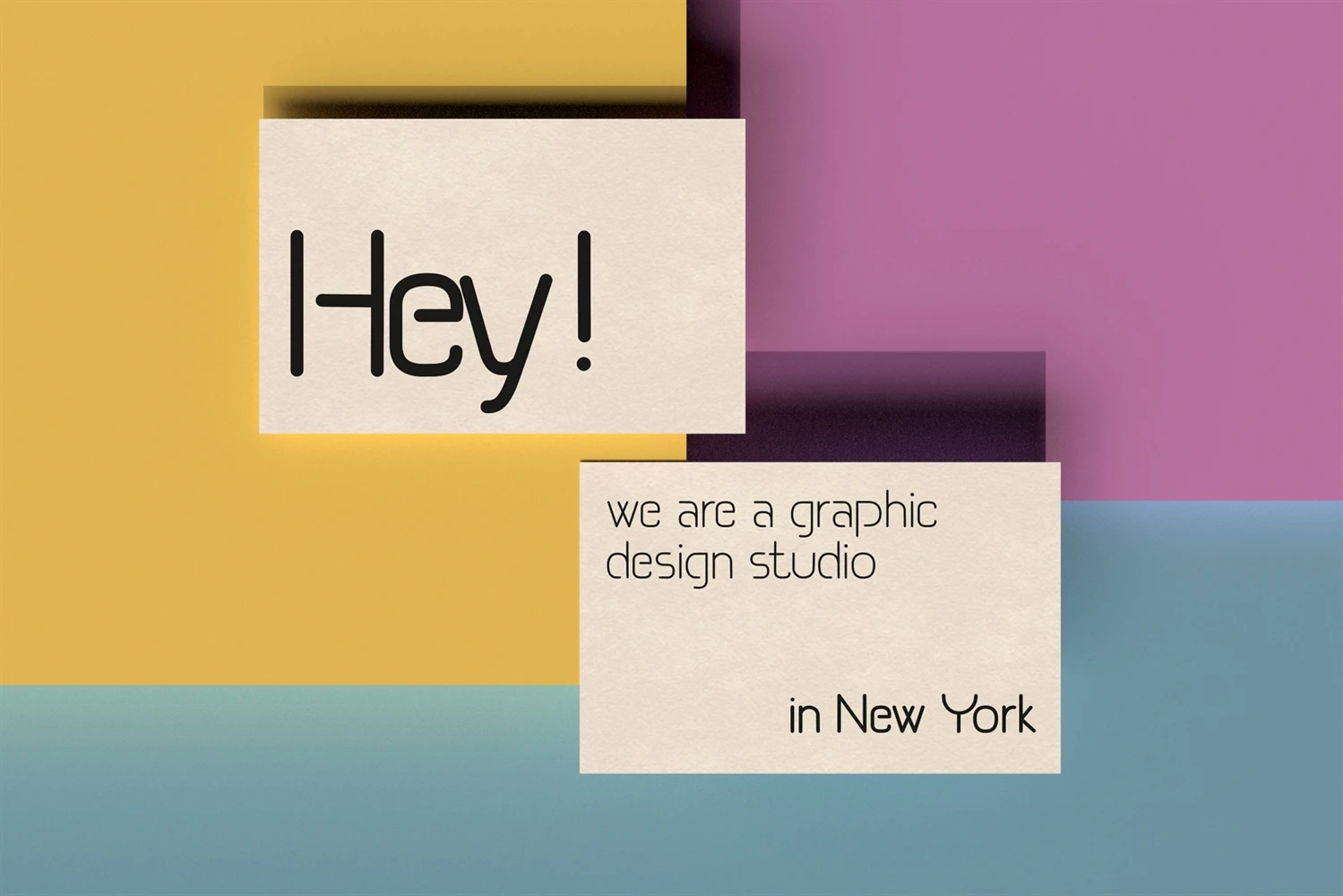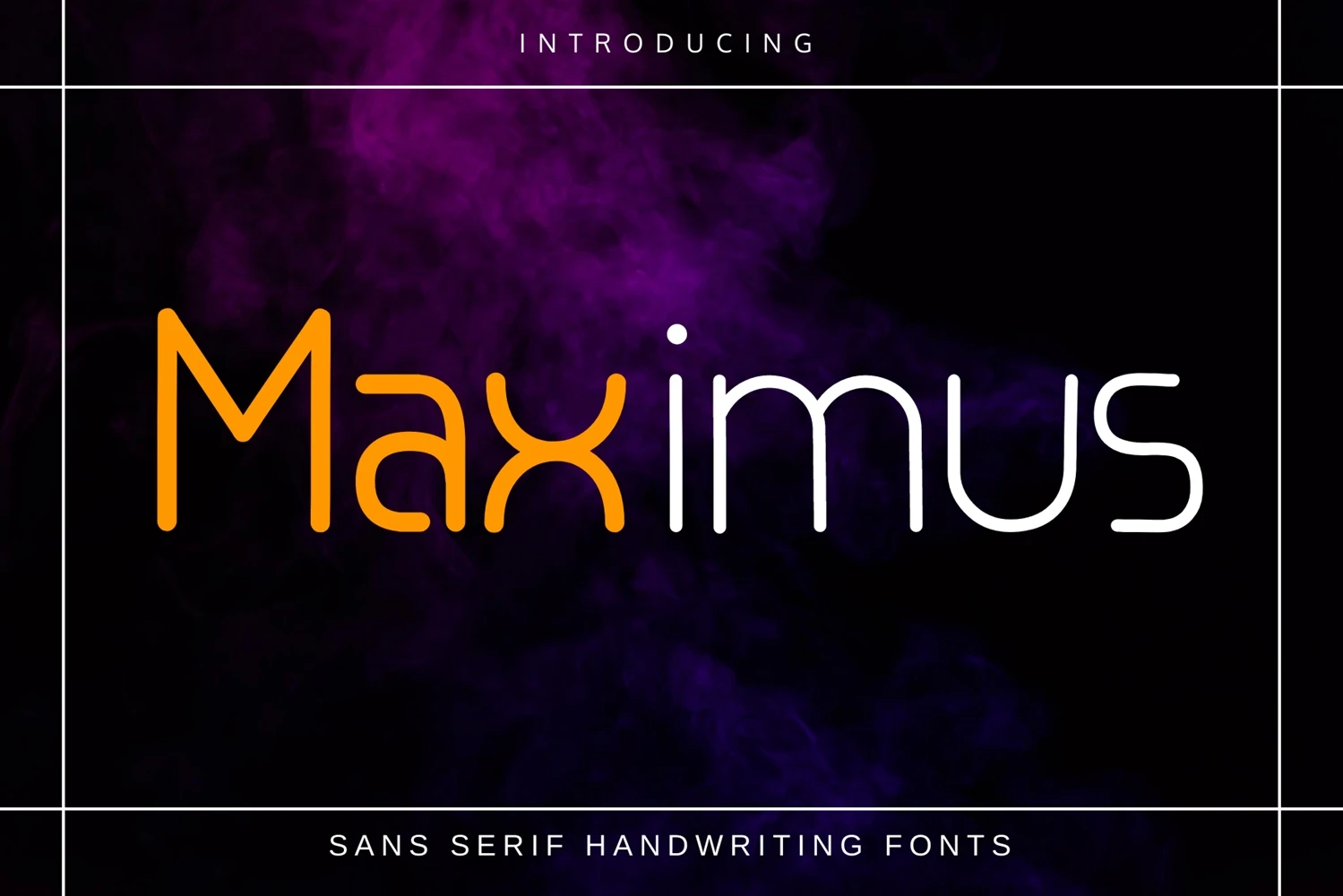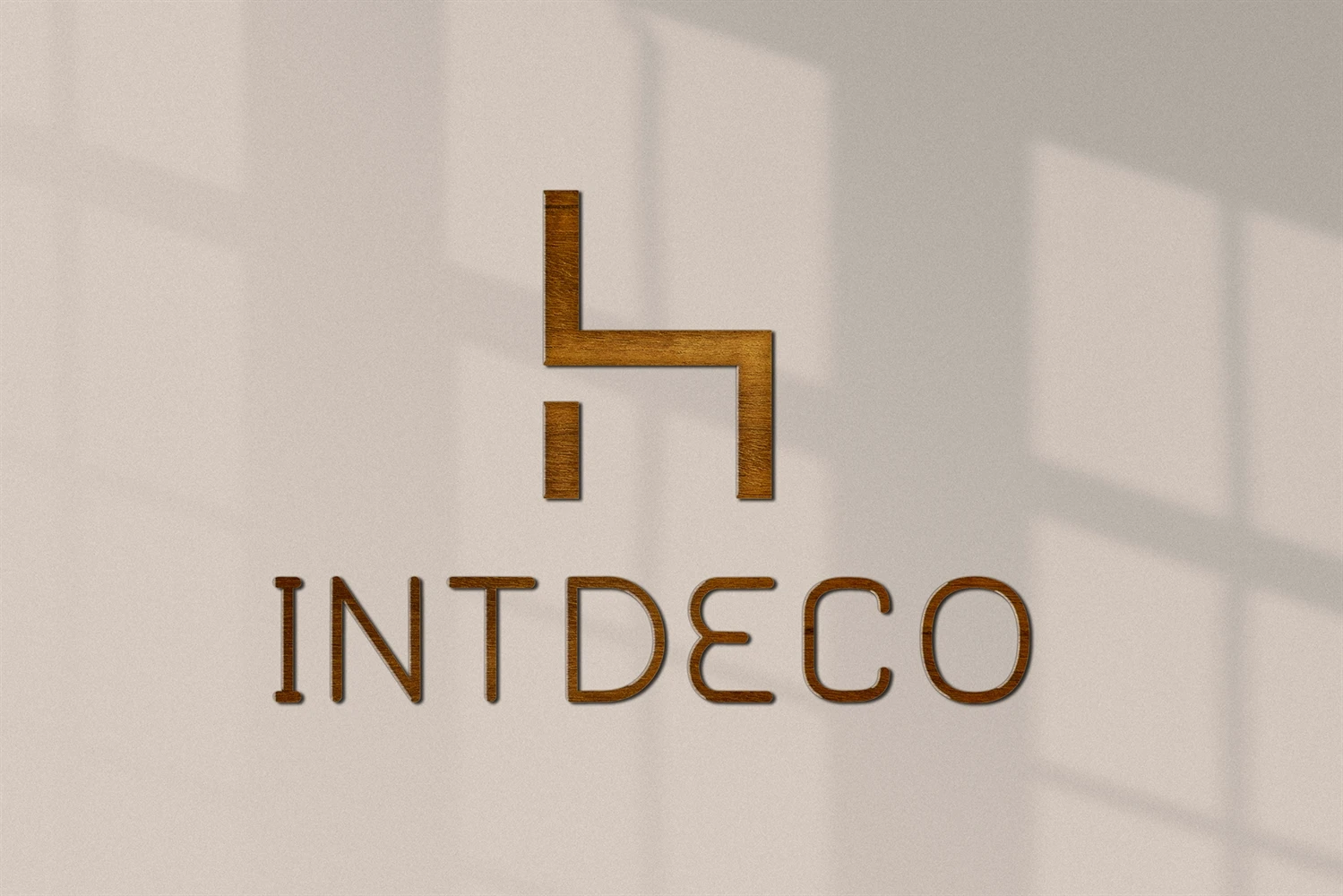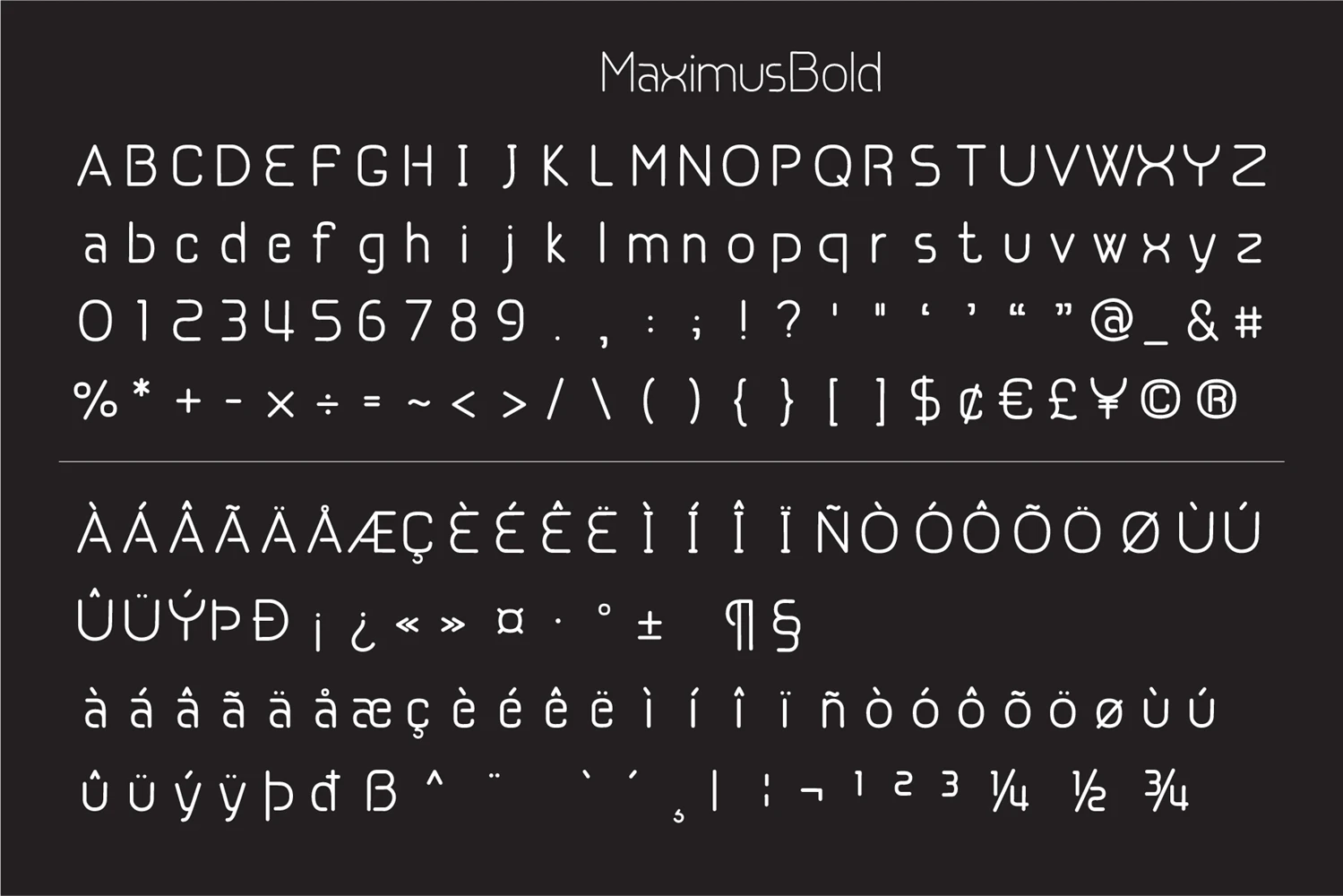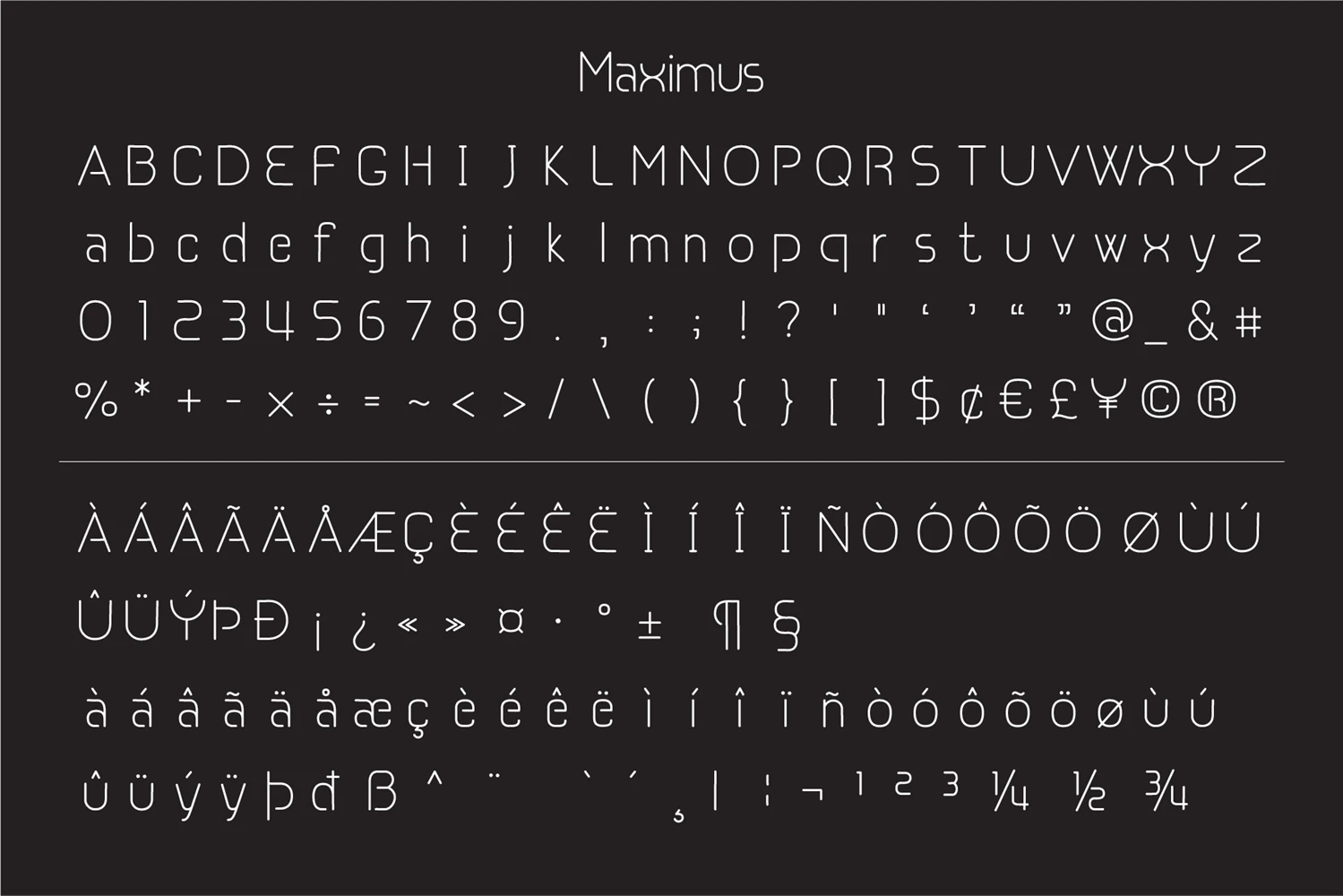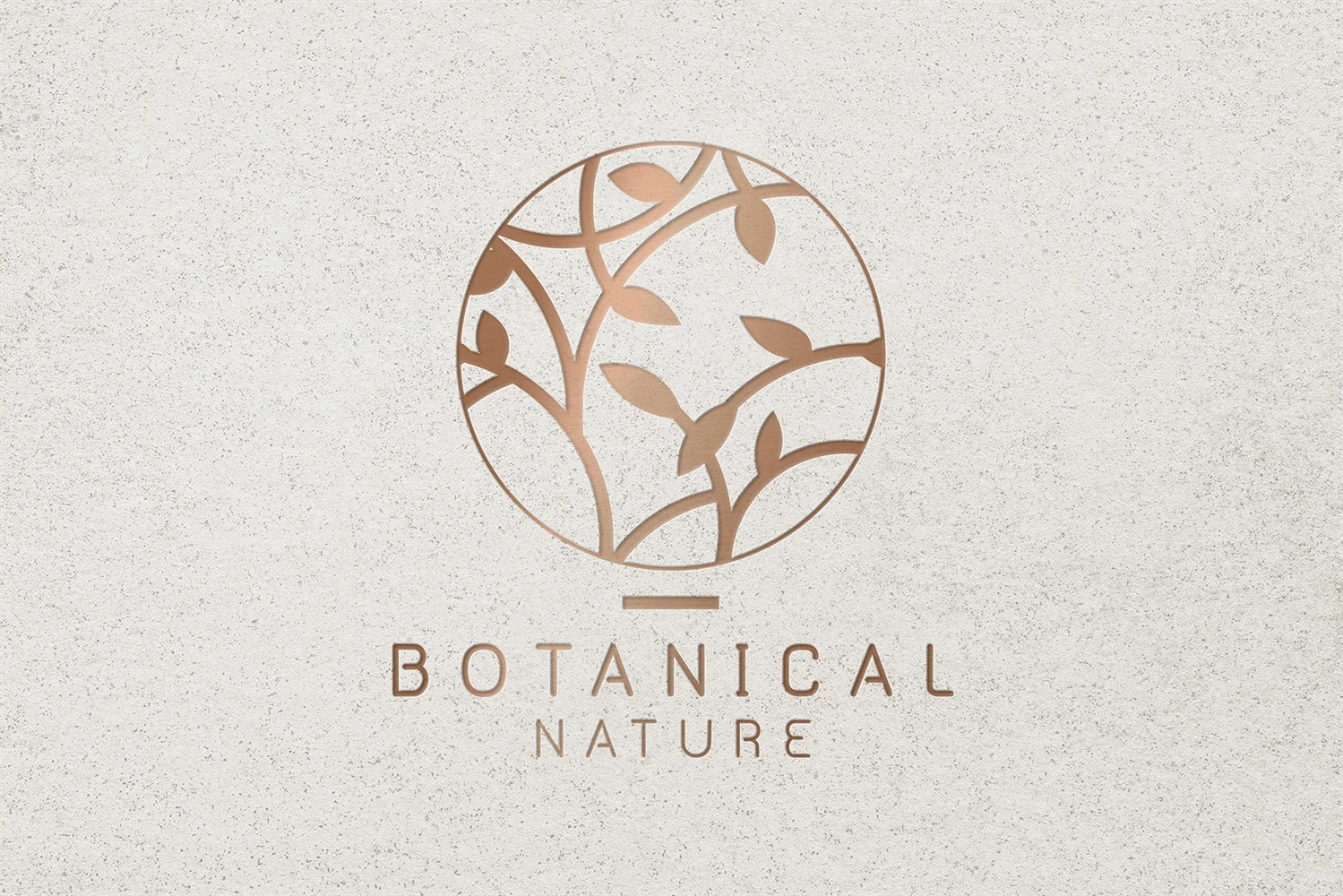
Maximus a minimalistic and stylish sans serif font. You can use it for various projects such as blog posts, logos, branding, ads, invitations, greeting cards, planners, photo albums, decorations, and much more. Add it to any of your designs, and enjoy the results!